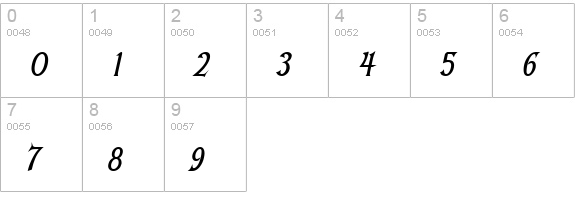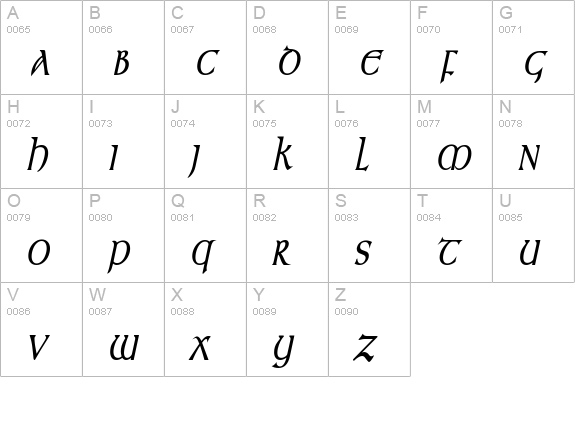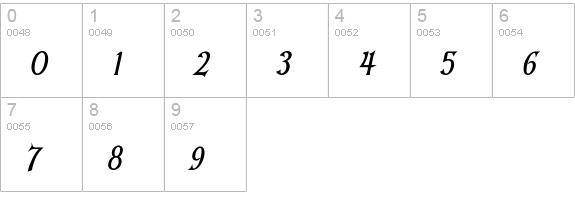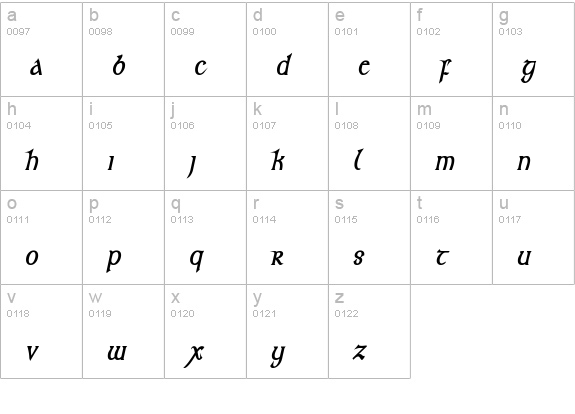
Kelt Thin BoldItalic is a delicate, low-contrast variant in the Kelt typeface family \xE2\x80\x94 well suited to fashion editorial, minimal branding, and high-contrast display.
Introducing Kelt Thin BoldItalic, a stunning and versatile font that is sure to captivate your audience. With its sleek and modern design, this font exudes elegance and sophistication, making it perfect for a wide range of creative projects. The bold and italic variations of Kelt Thin add an extra element of uniqueness and flair to your typography, allowing you to stand out from the crowd. Whether you're designing a logo, crafting a headline, or creating eye-catching graphics, Kelt Thin BoldItalic is guaranteed to make a lasting impression. But what sets Kelt Thin BoldItalic apart from other fonts? The answer is simple - it's free! Yes, you heard that right. This exceptional font is freely available to download at FontsMarket.com, ensuring that you have access to top-quality typography without breaking the bank. Not only does Kelt Thin BoldItalic offer you the opportunity to enhance your designs with its stunning aesthetic, but it also provides the convenience of being easily accessible. With just a few clicks, you can have this remarkable font at your fingertips, ready to elevate your creative projects to new heights. So why wait? Don't miss out on the chance to add Kelt Thin BoldItalic to your font collection. Download it for free at FontsMarket.com today and unlock a world of endless design possibilities. Let your creativity soar with this exceptional font that is sure to make a statement.